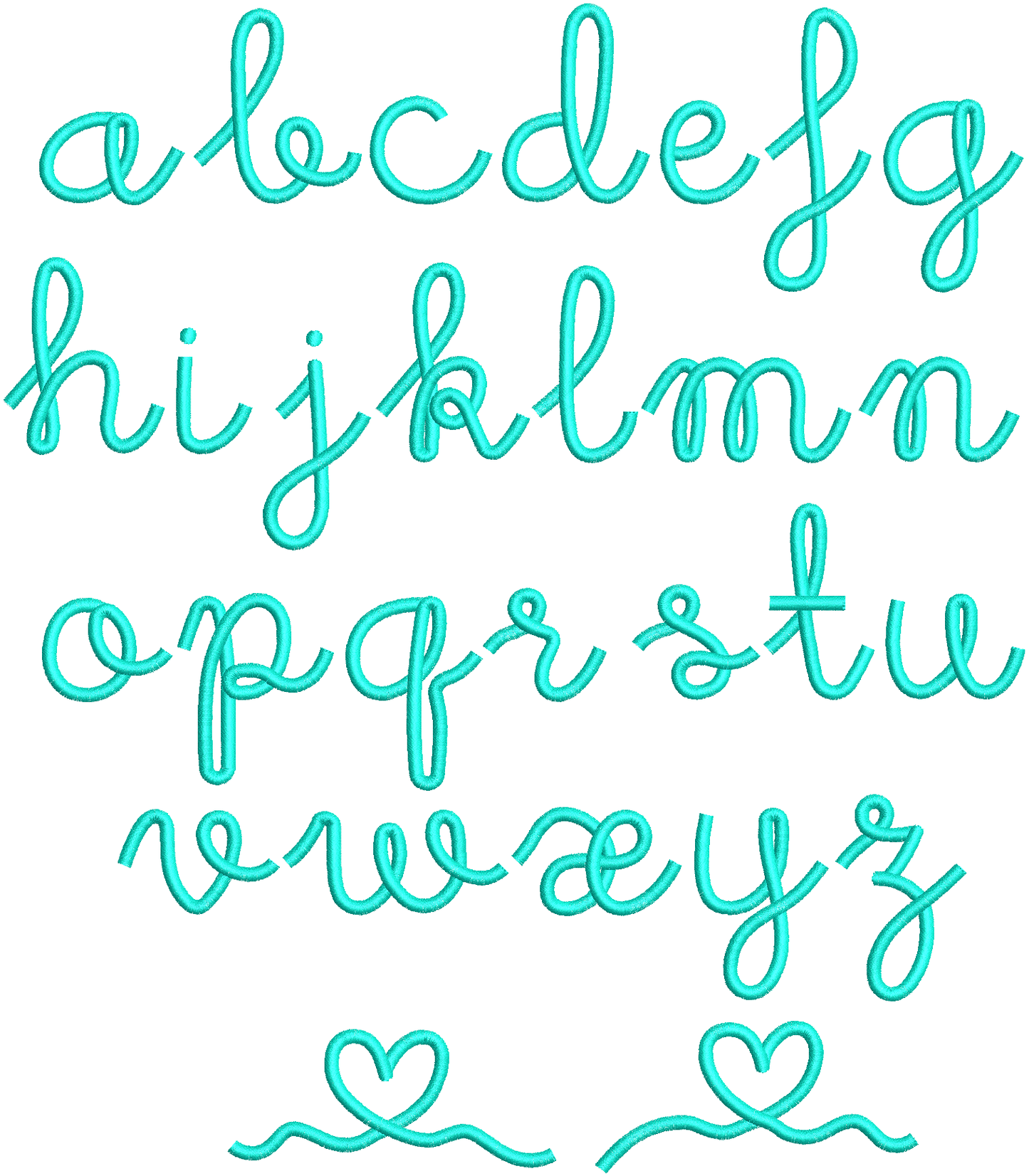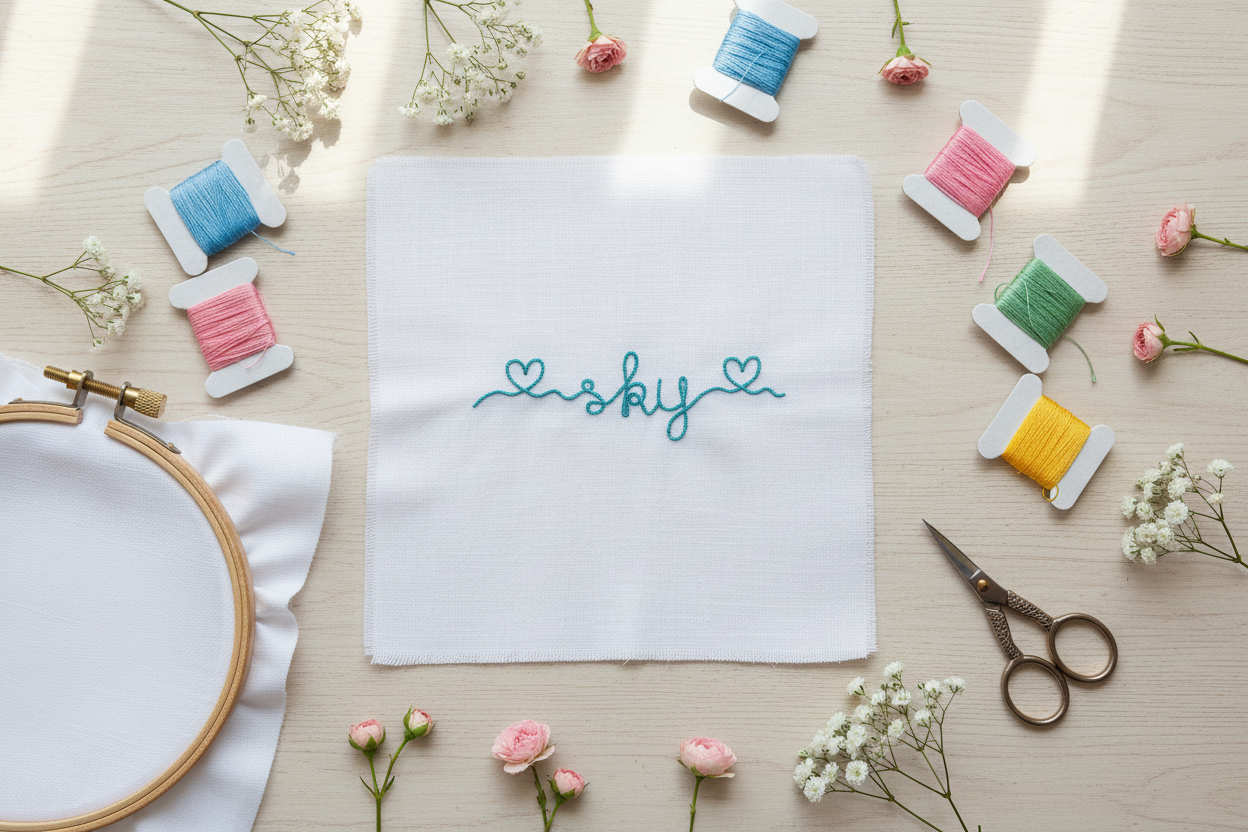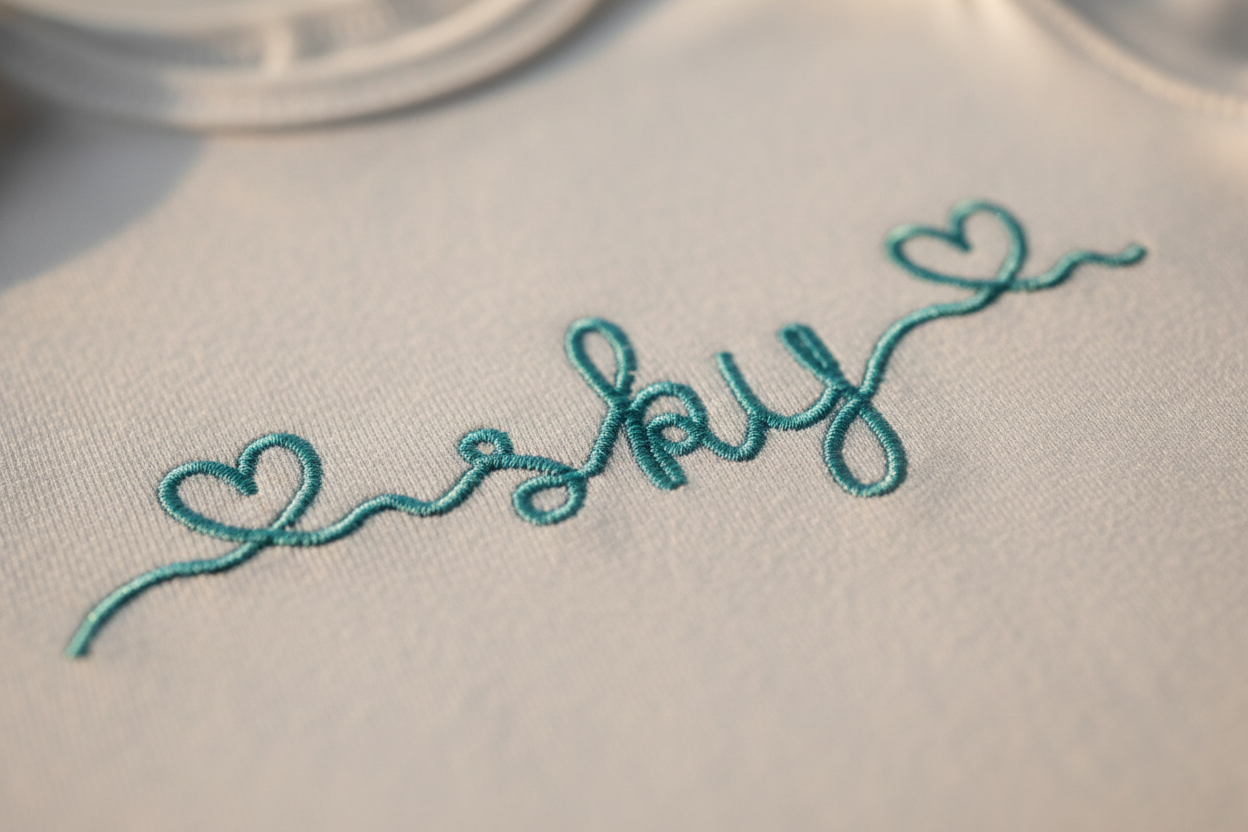
Baby Heart Embroidery Font
Introducing the Baby Heart Embroidery Font — a sweet cursive wire-style font adorned with heart decorations on each side, perfect for baby clothing, gifts, and handmade projects.
- Ideal for baby onesies, bibs, towels, and light fabrics